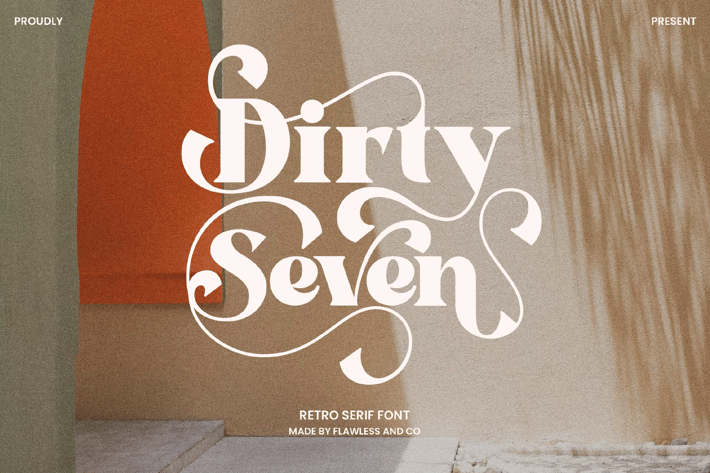
Dirty Seven - Retro Serif Font
Introducing "Dirty Seven" - A Retro Serif Font, a retro serif font that pays homage to the timeless charm of vintage typography. With its bold serifs and distinctive character, "Dirty Seven" is designed to infuse your designs with a sense of retro authenticity and style. This font is suitable for any graphic design, such as branding materials, retro design, vintage design, invitations, posters, photography, etc.